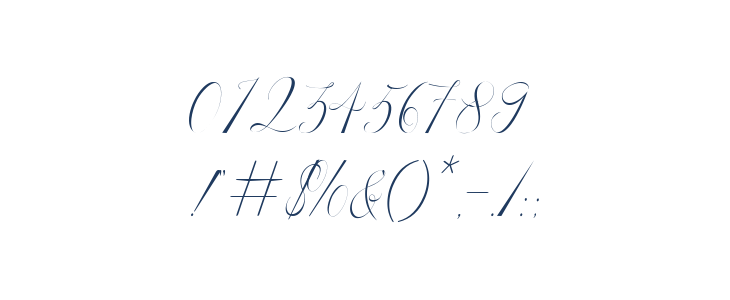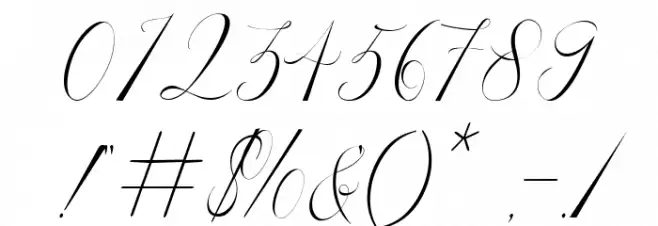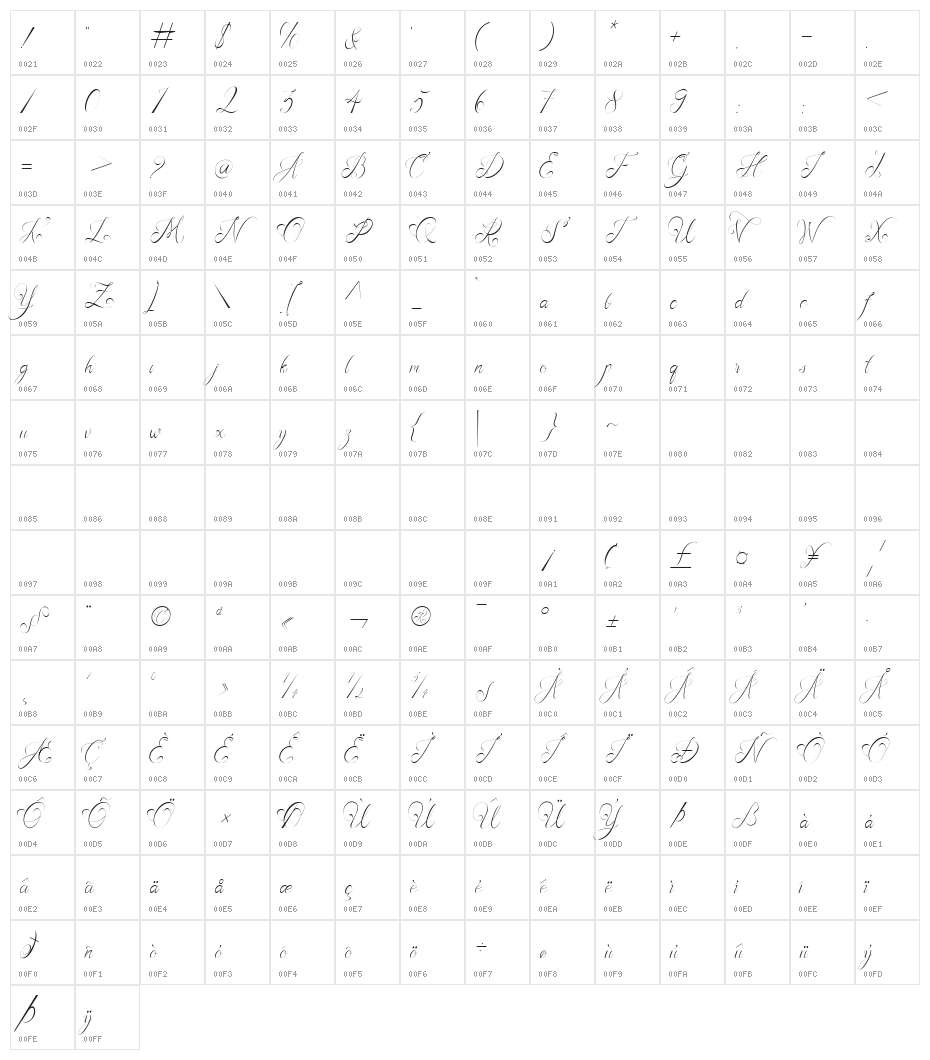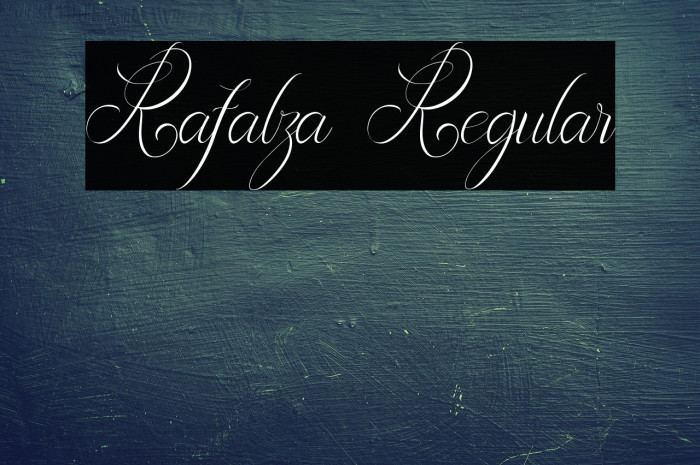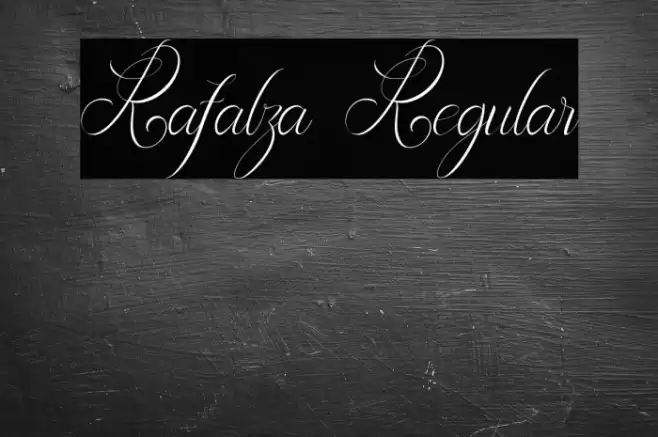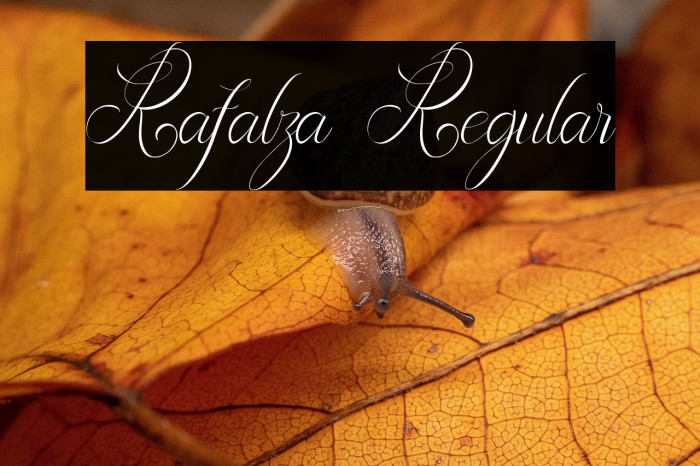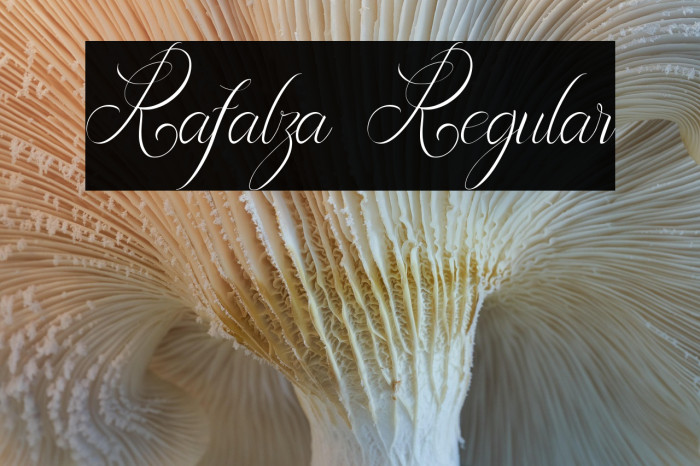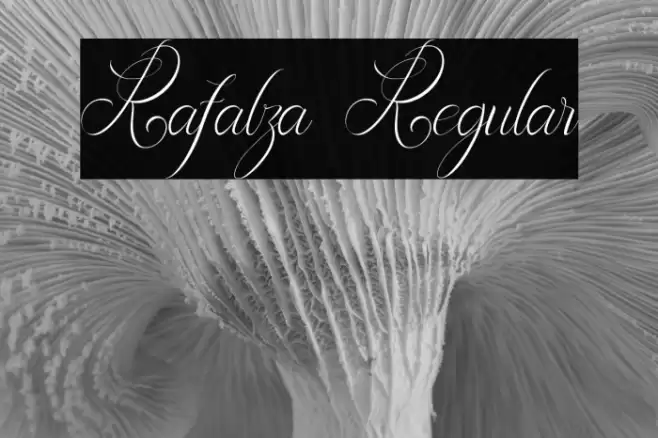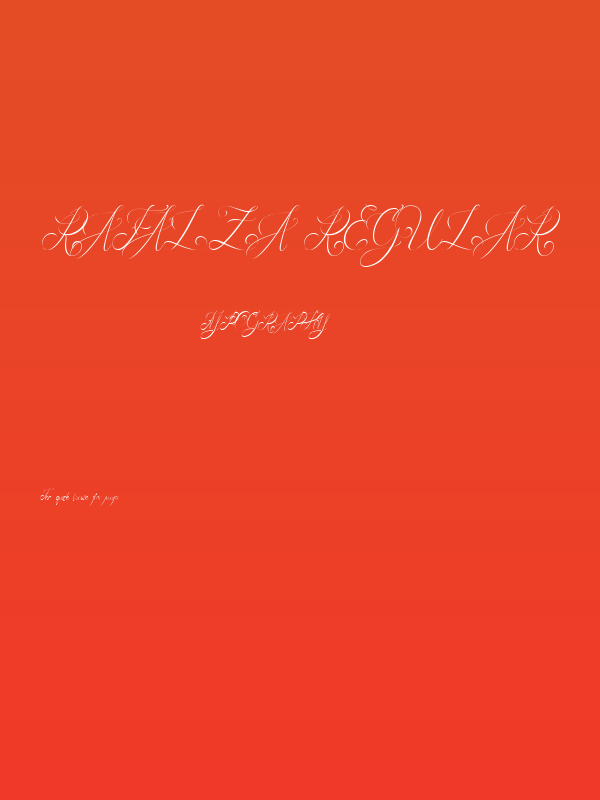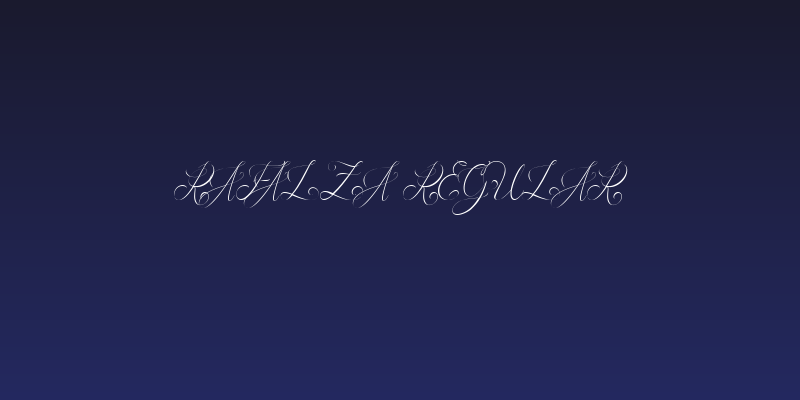
Rafalza Regular Font
Rafalza Regular Description
This elegant script font features intricate and flowing letterforms with elaborate swashes and flourishes. The uppercase letters are particularly ornate, with extended loops and curves that give a sense of movement and grace. The lowercase letters maintain a consistent style, offering a harmonious balance with the uppercase. The numerals and special characters are designed with the same attention to detail, ensuring a cohesive look across all glyphs. This font exudes sophistication and is perfect for adding a touch of luxury to any design.
| Proposed Projects | Ideal for wedding invitations, luxury branding, elegant packaging, and high-end stationery. |